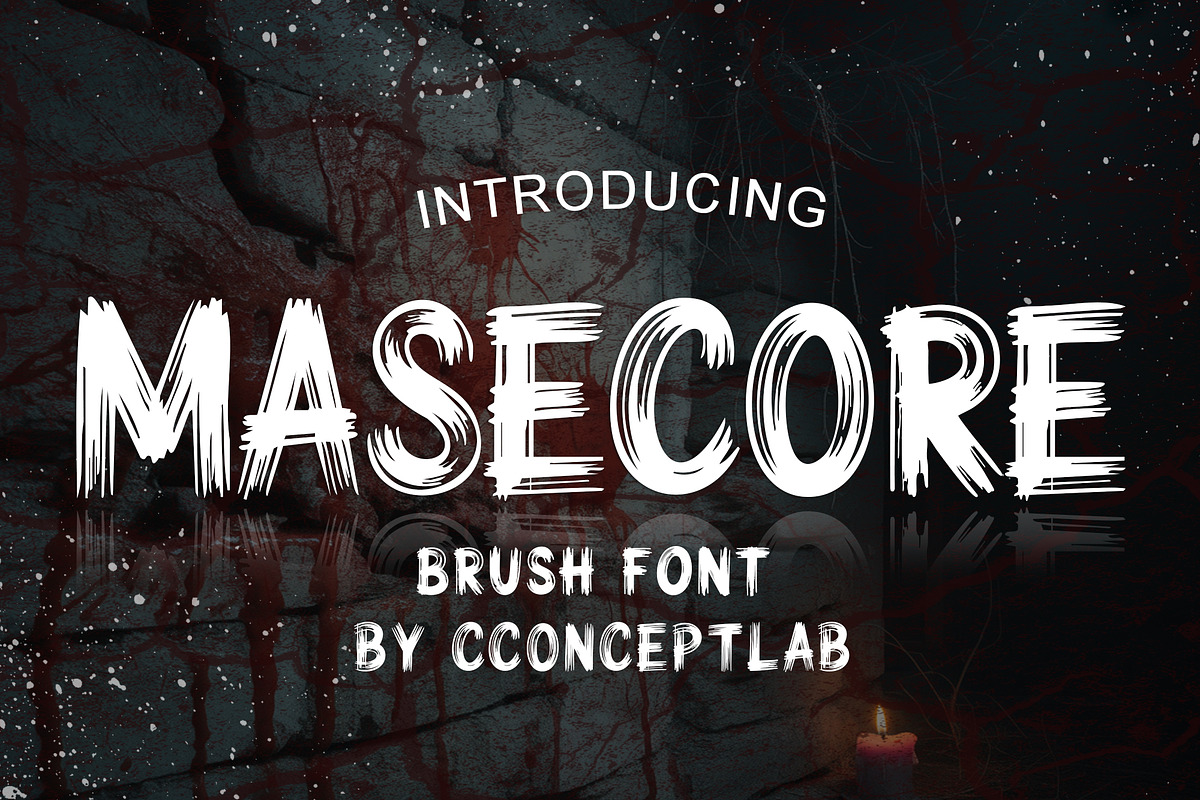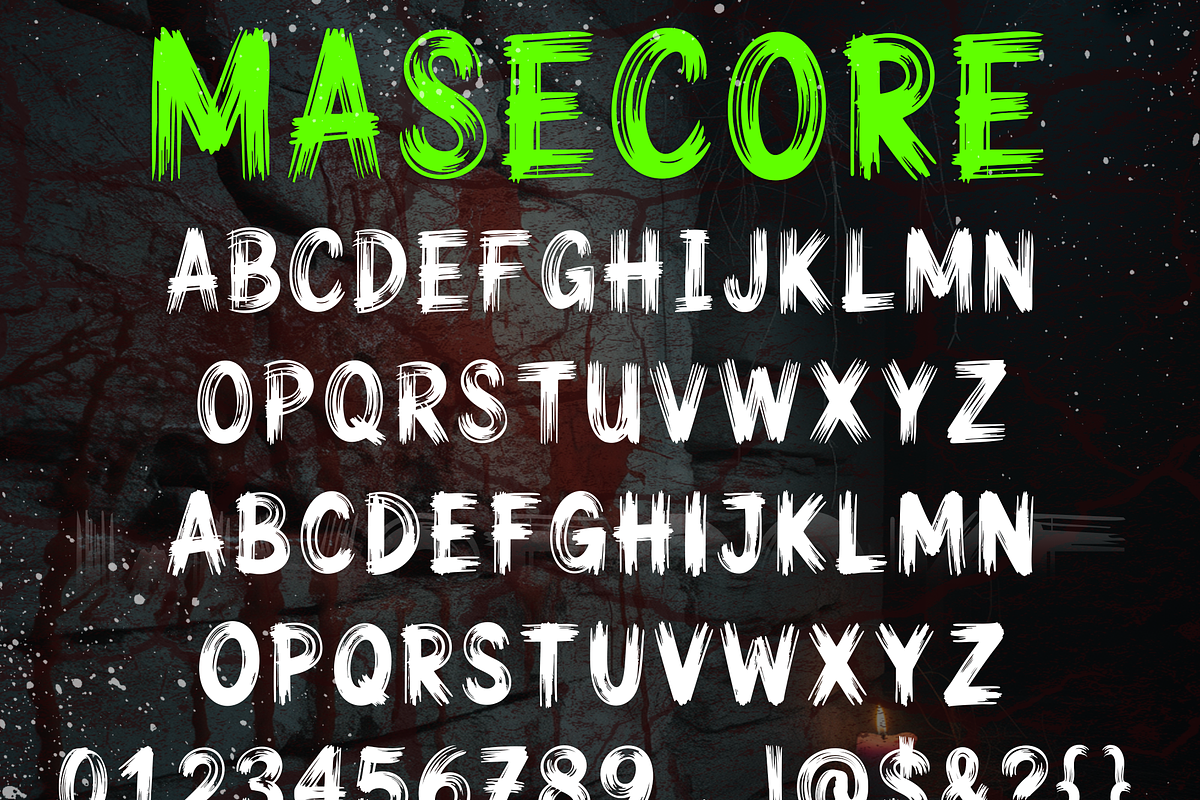
MASECORE
Introducing
MASECORE
- Brush inspired font perfect on your projects, event themes, slides, covers, etc.
- Available in Uppercase, Numbers, Punctuations and Symbols.